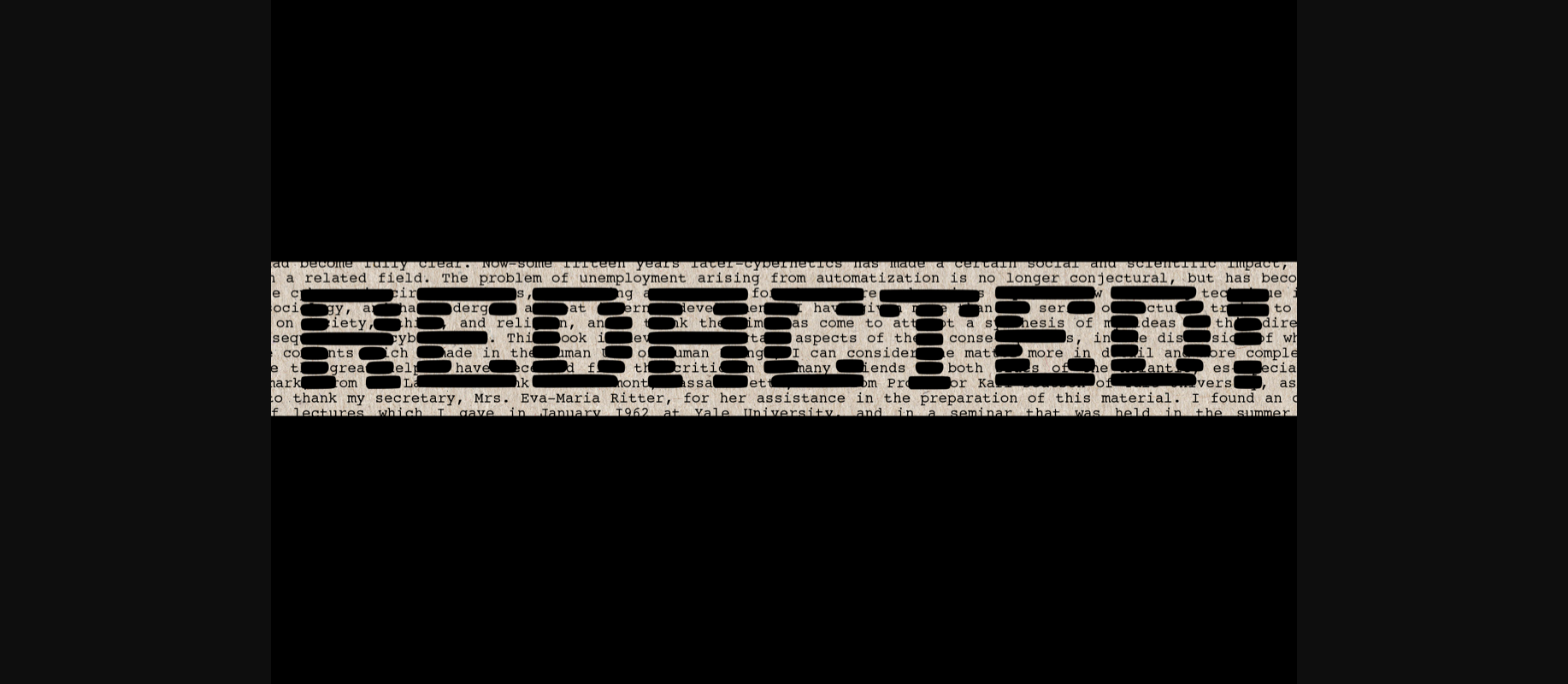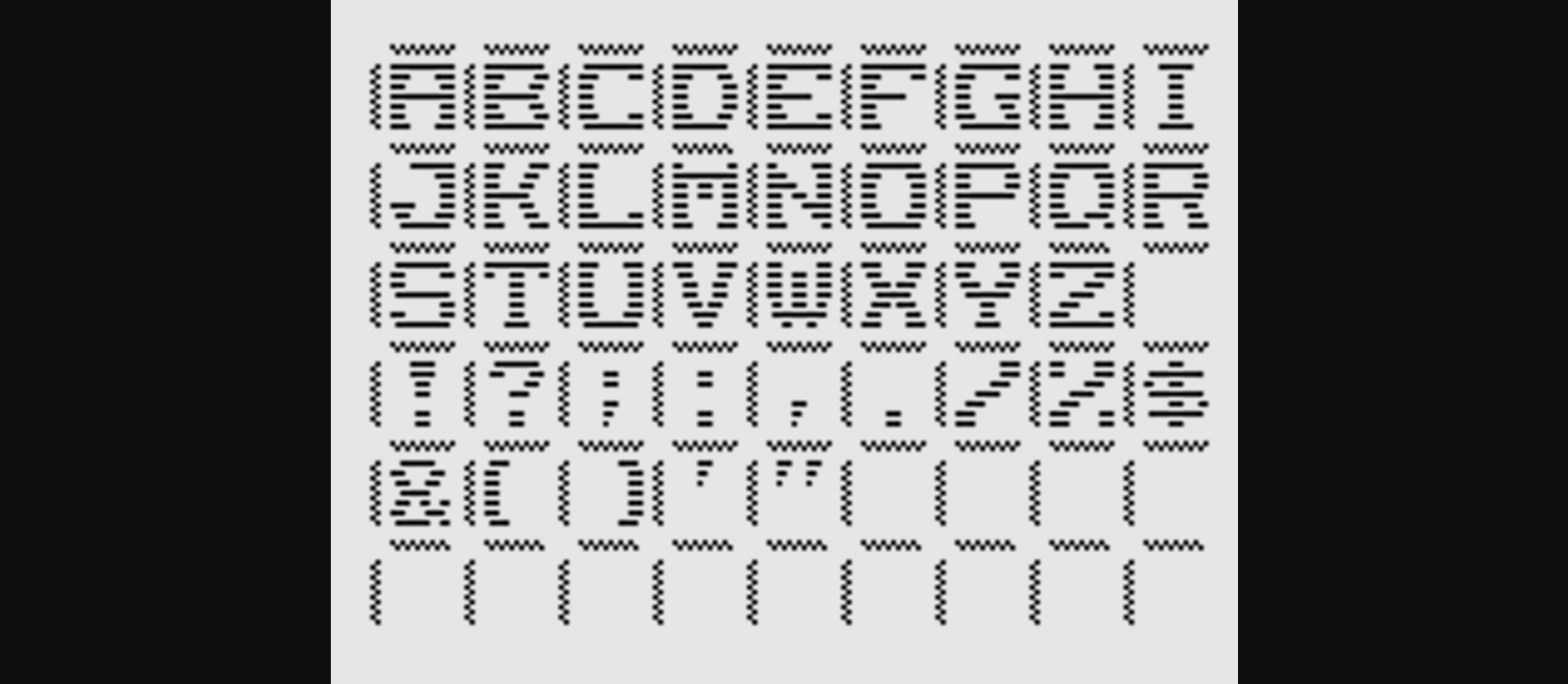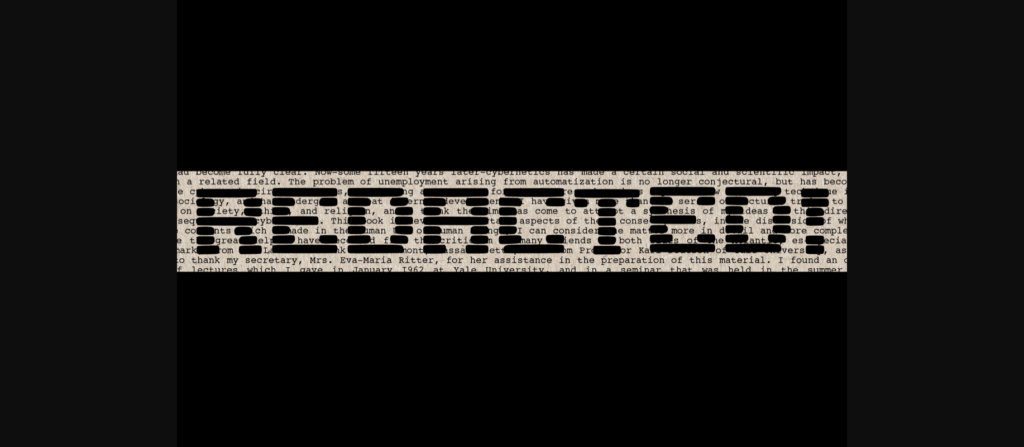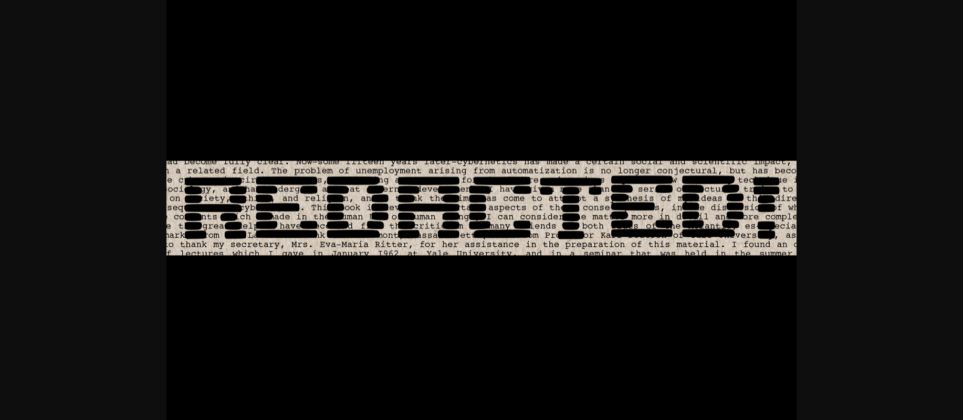
About Redacted Font
Redacted delivers a reduced, yet bold font experience. With its lined characters, it has a distinct technical feel, which makes it great for industrial-themed projects.